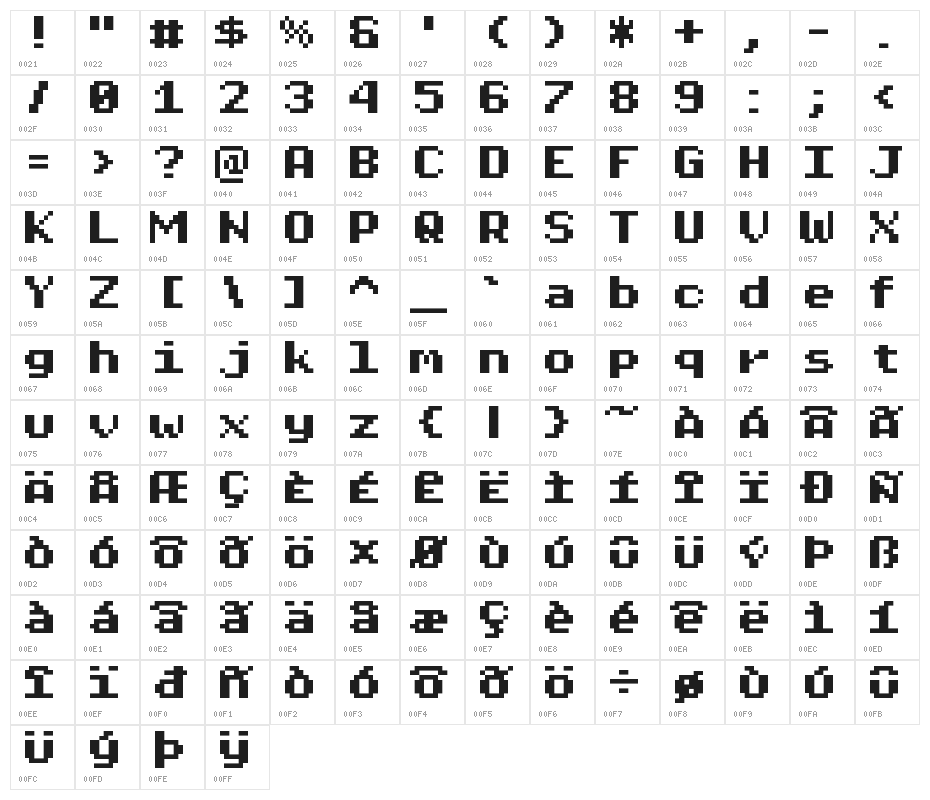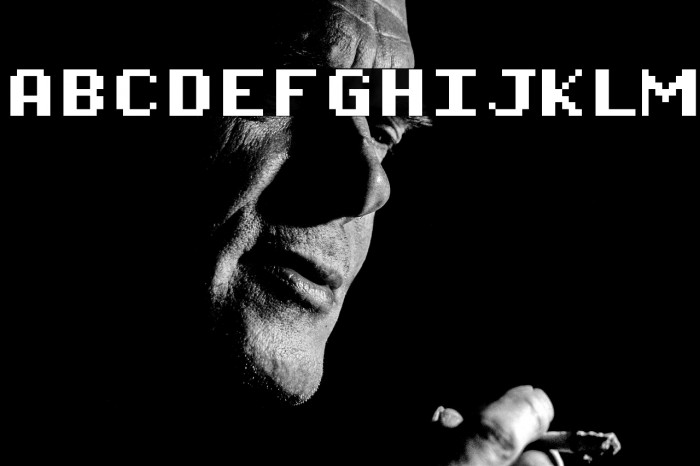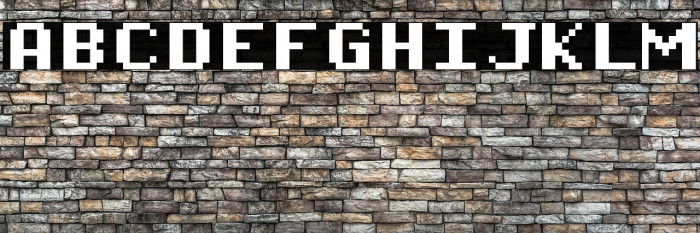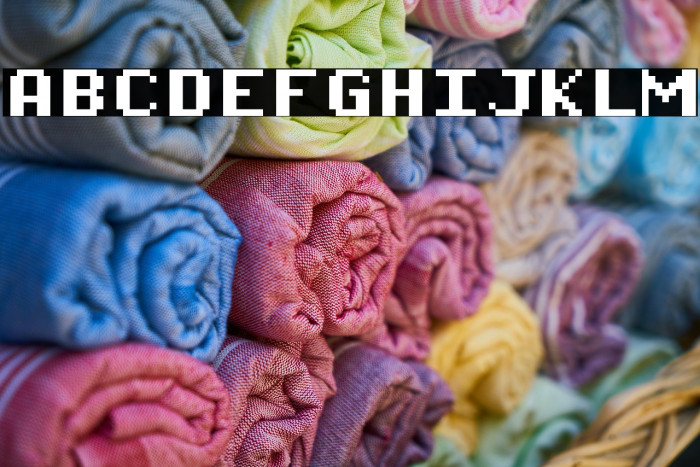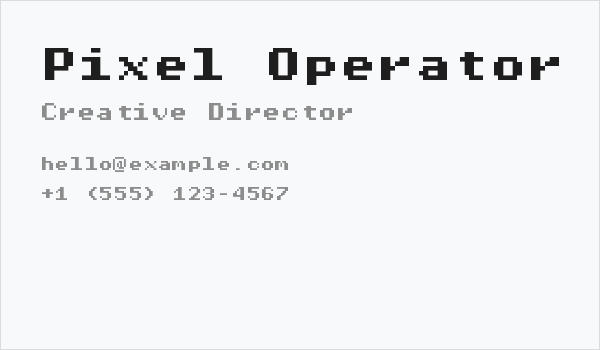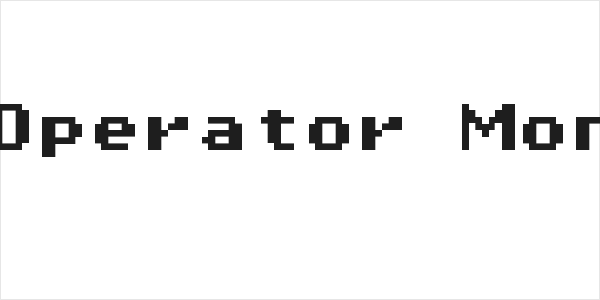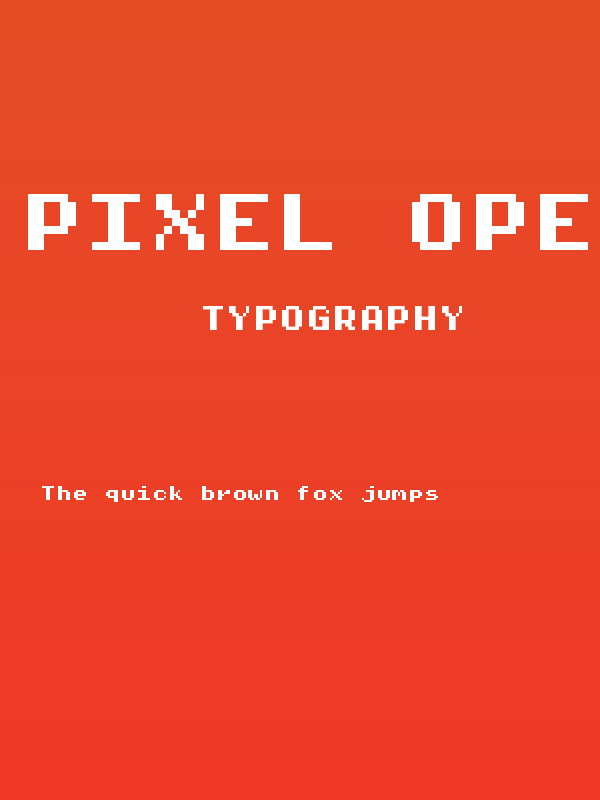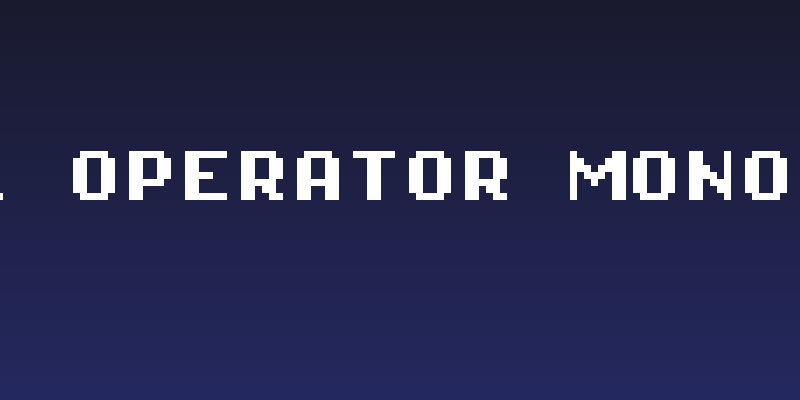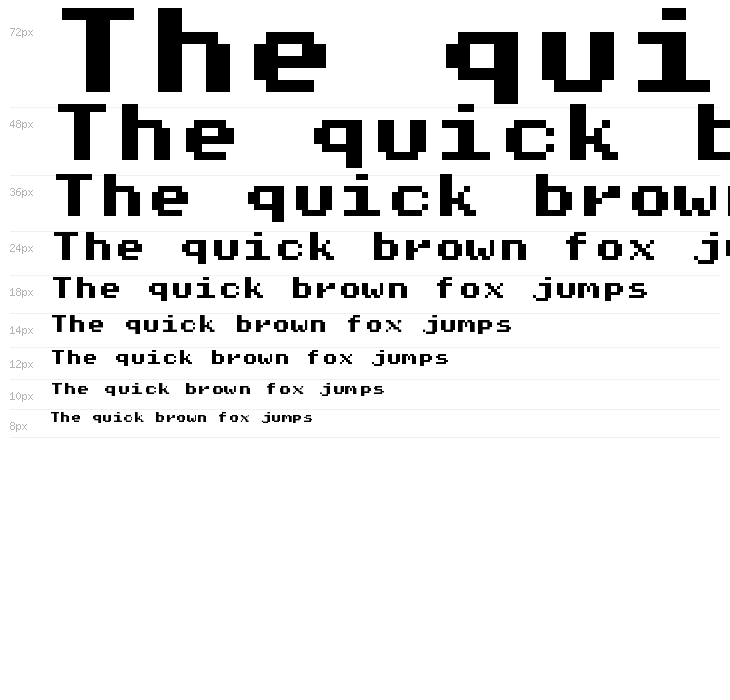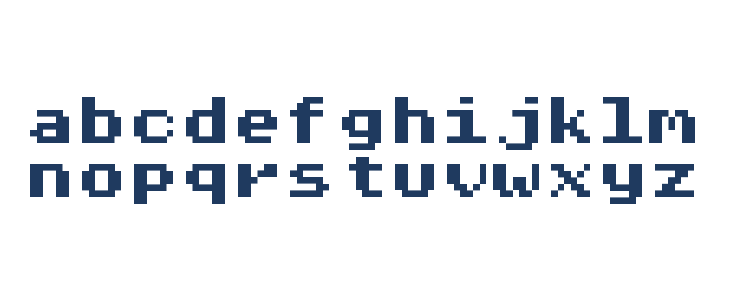
Pixel Operator Mono HB 8 Font
Pixel Operator Mono HB 8 Description
This font features a distinct pixelated style, reminiscent of early computer and video game graphics. Each character is composed of blocky, square shapes that give it a retro digital appearance. The uniformity in character width highlights its monospaced nature, making it ideal for coding and technical applications. The uppercase and lowercase letters maintain a consistent height, while the numerals and special characters are clearly defined, ensuring readability. The overall aesthetic is both nostalgic and functional, appealing to those who appreciate vintage digital design.
| Use Case | Headlines, Coding, Digital Art |
| Proposed Projects | Ideal for retro video games, coding environments, digital art projects, and any design requiring a vintage computer aesthetic. |